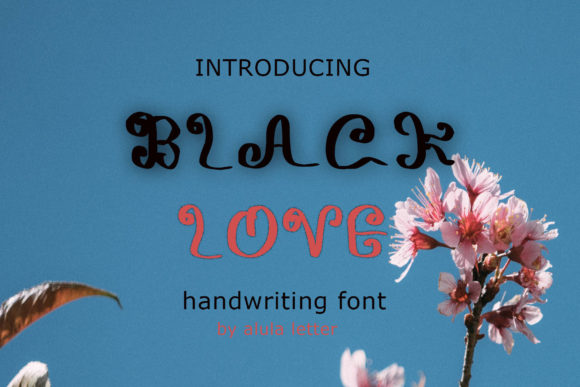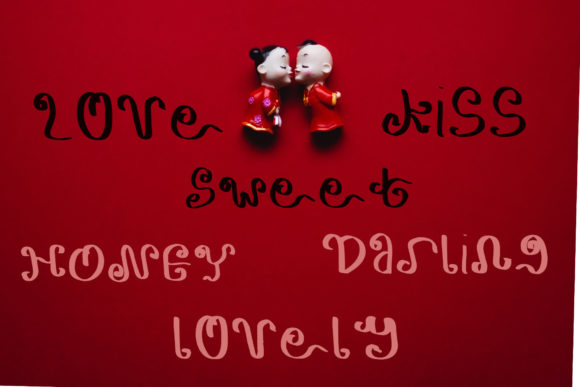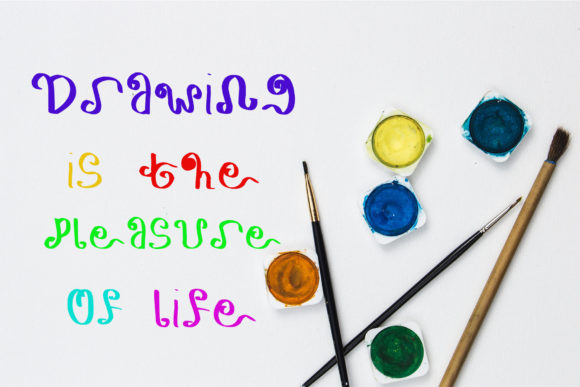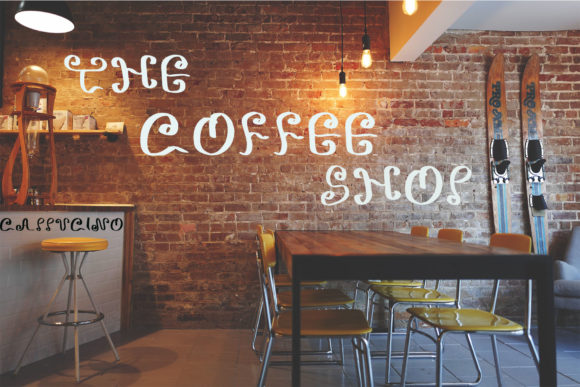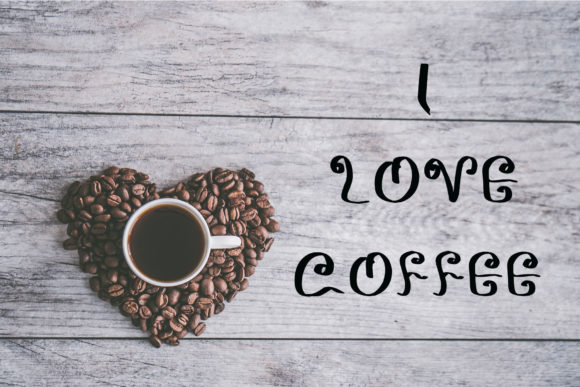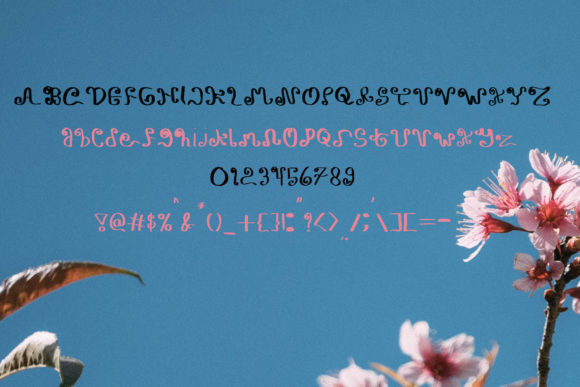
Black Love Font
About Black Love Font
Black Love is a cute and fun script font that will take any design idea to the next level. Get inspired by its unique charm, and turn any design project into a true standout!